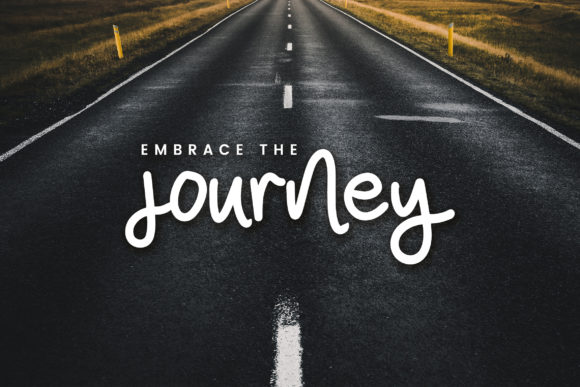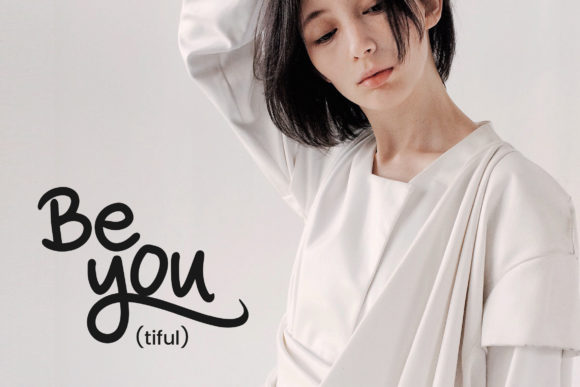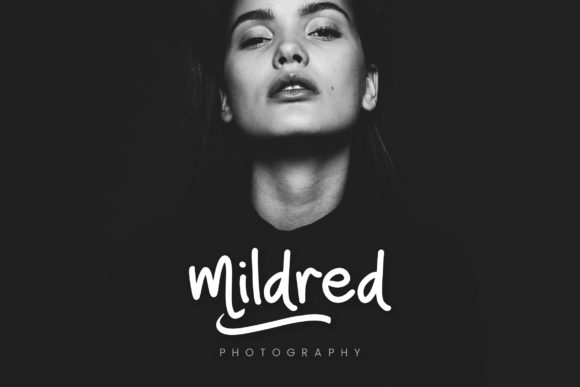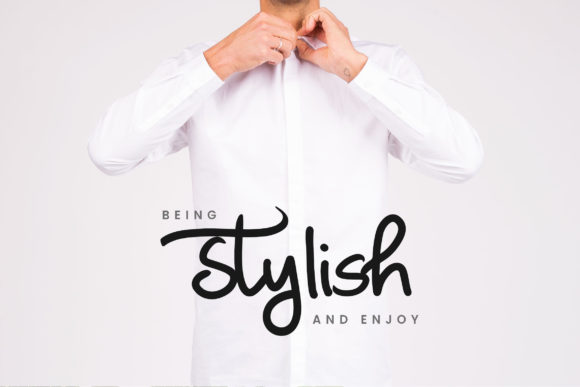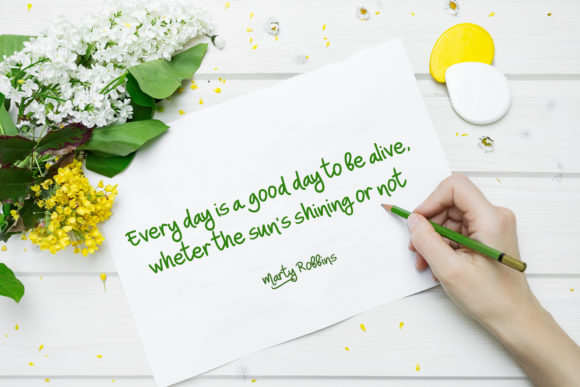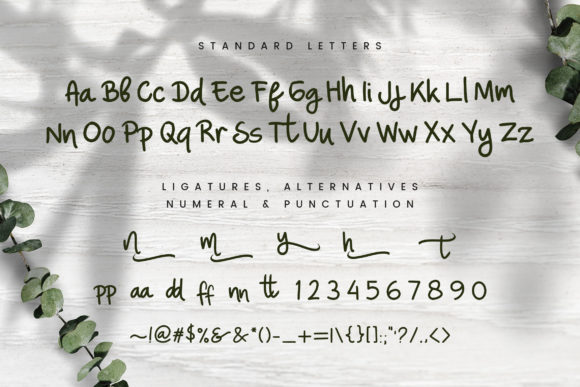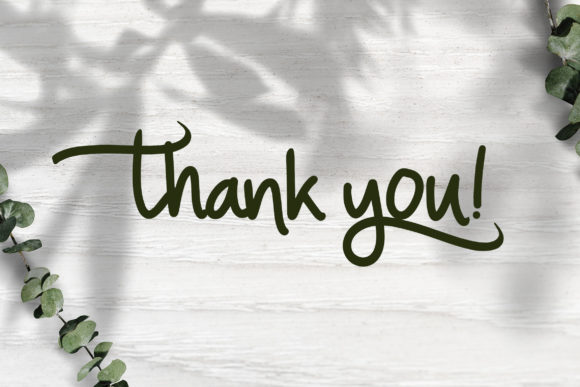
Nina Ninut Font
About Nina Ninut Font
Nina Ninut is a beautiful and quirky handwritten font with a bouncy baseline. Full of personality, it will add an authentic touch to any design idea!